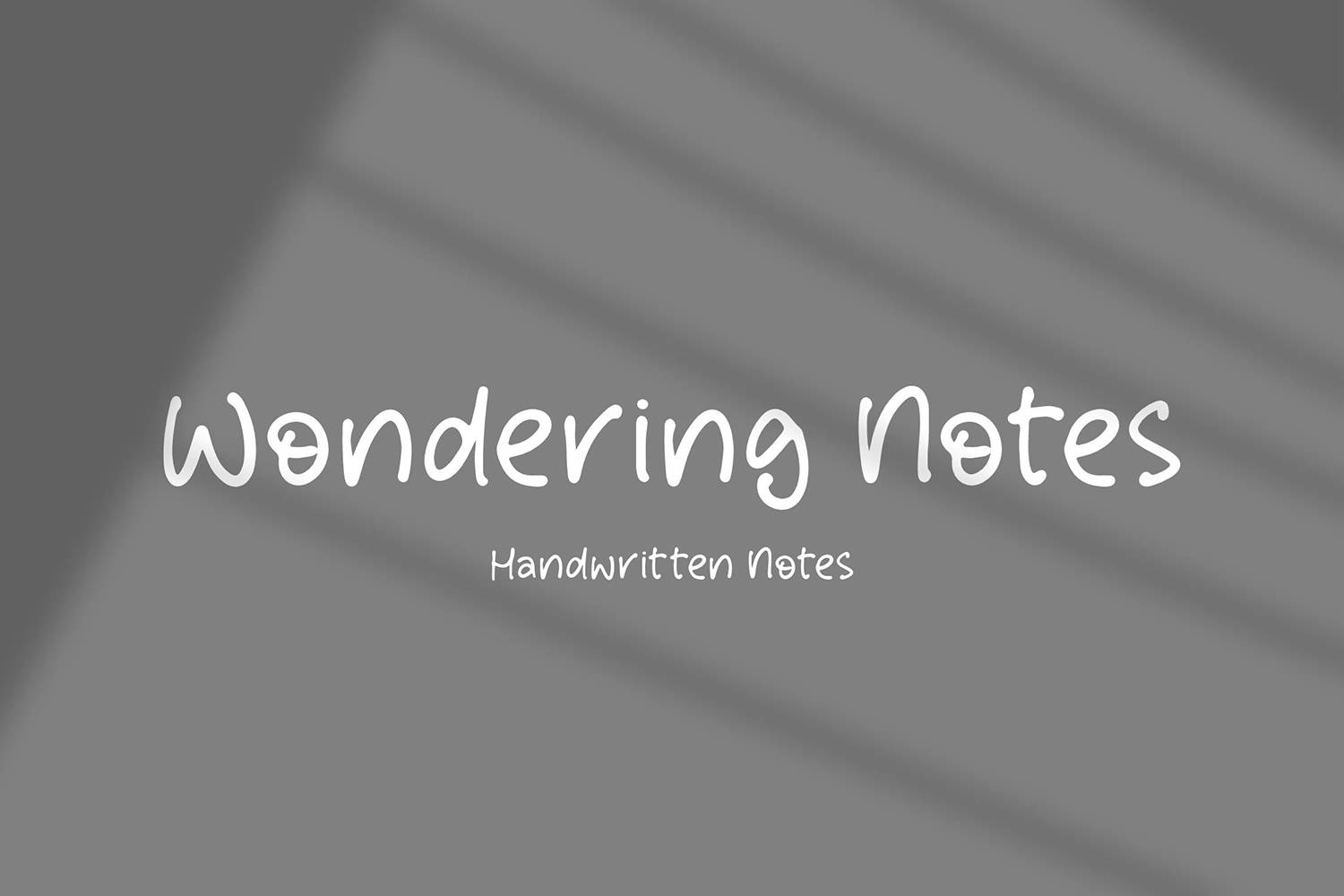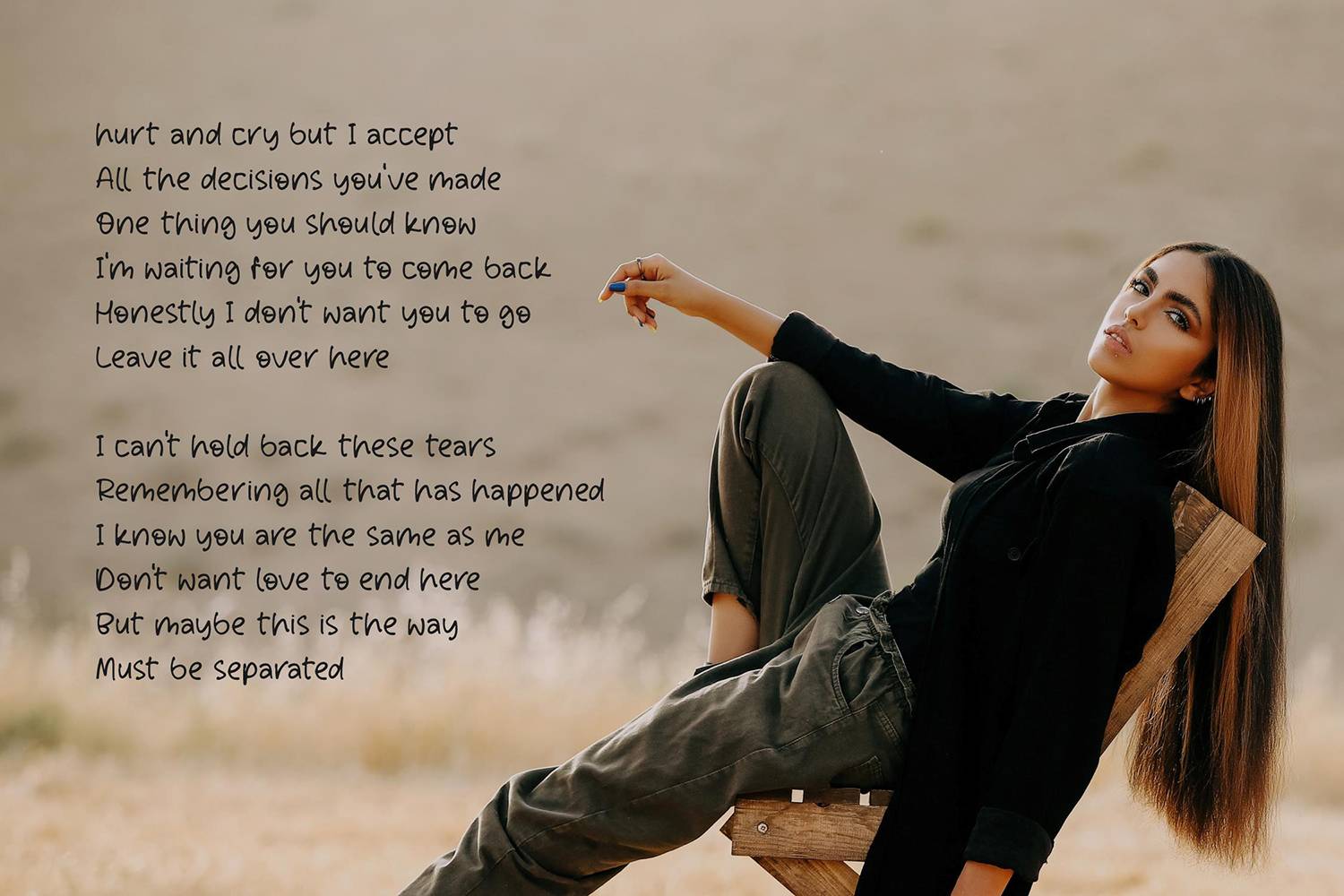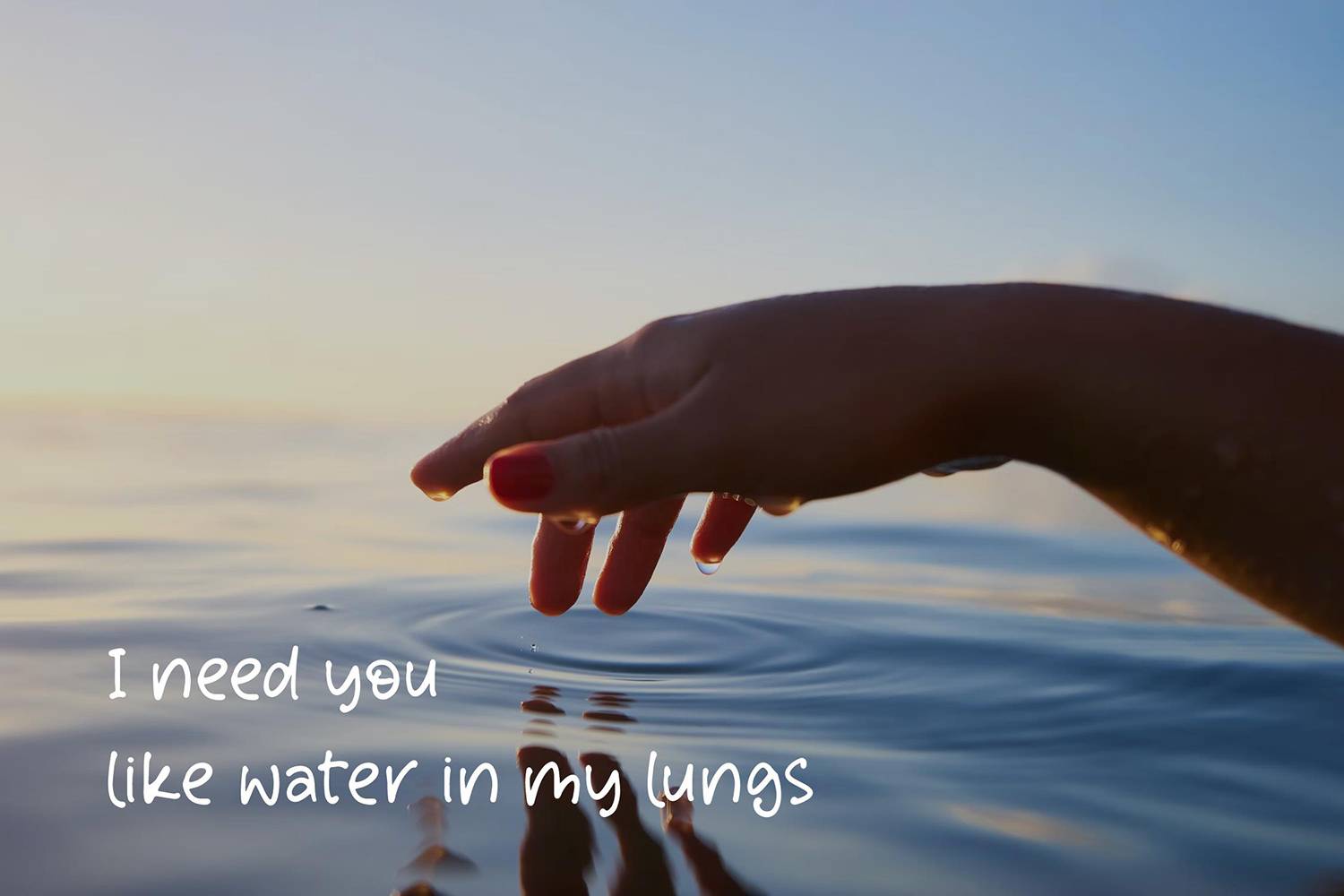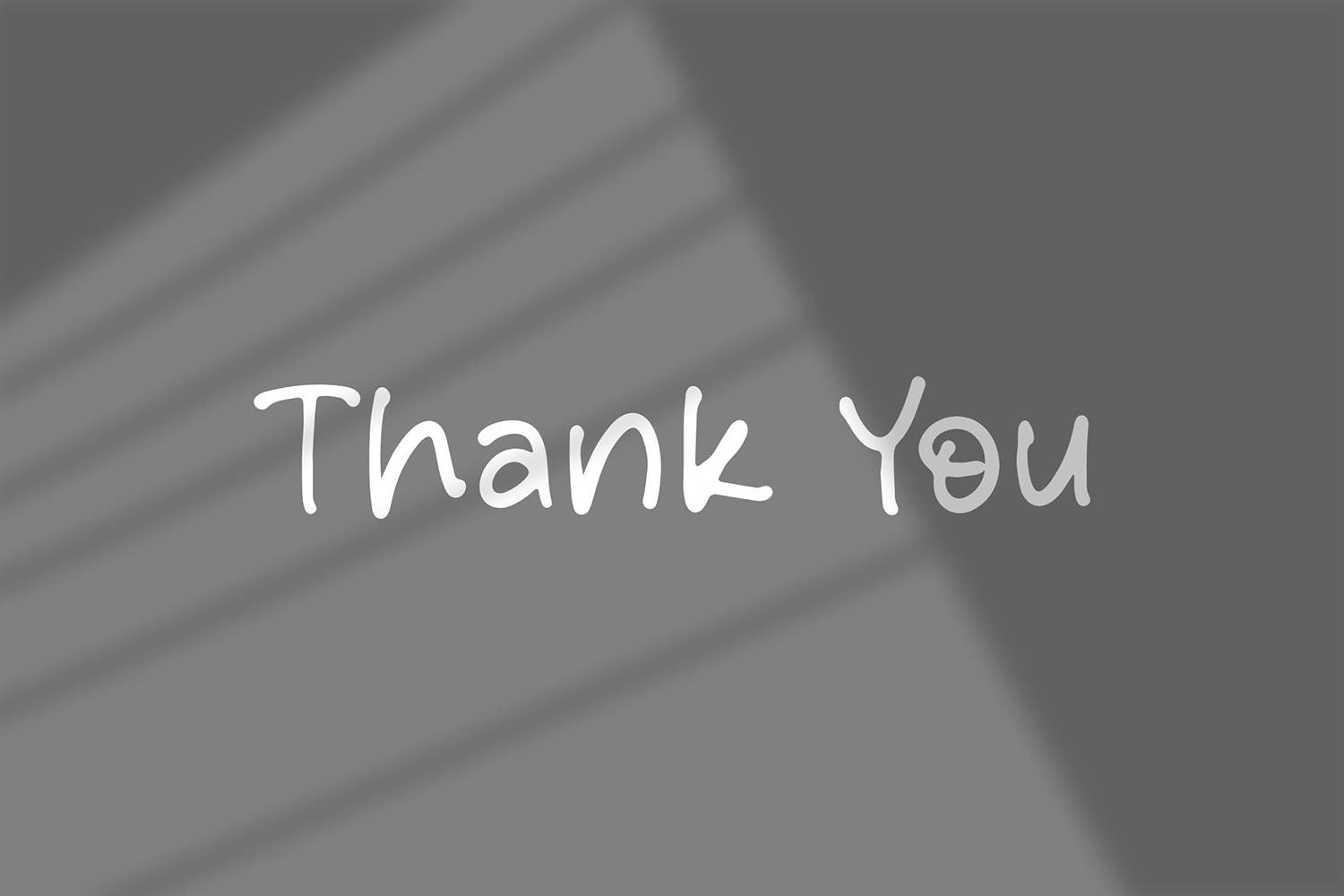
Wondering Notes is a playful, casual handwritten font with a light weight and friendly, rounded letterforms that feel personal and informal. Its irregular strokes and quirky character shapes give it a lively, approachable vibe, making it ideal for creative projects, kids’ materials, and any design seeking a warm, human touch. This font works best in headlines, logos, and playful branding where personality and casual charm are key.
Wondering Notes Font
About Wondering Notes Font